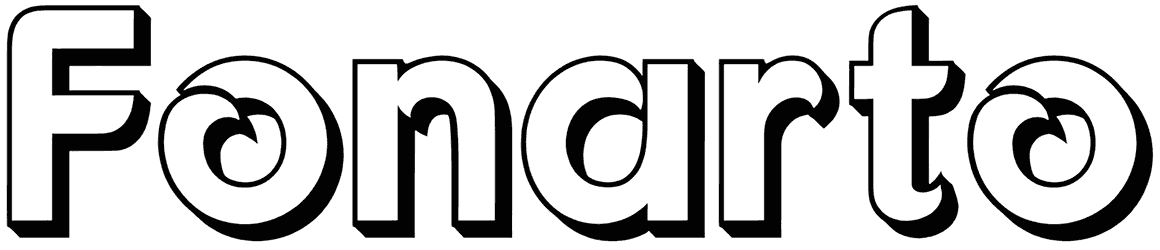
Fonarto XT Font
Do you need a stylish font that will help you look more professional and impressive in your design? Then you will welcome Fonarto XT. This outline font is inspired by the geometric designs and strong characters.
So it doesn’t matter if you are designing a book cover or you want to implement an advertisement to be installed in the city, in any case, this 3D font can meet your needs.
Fonarto is a sans serif font that is combined with classic shape in some parts. It makes Fonarto has a modern style with classic impression. Available in two version, regular and XT style.